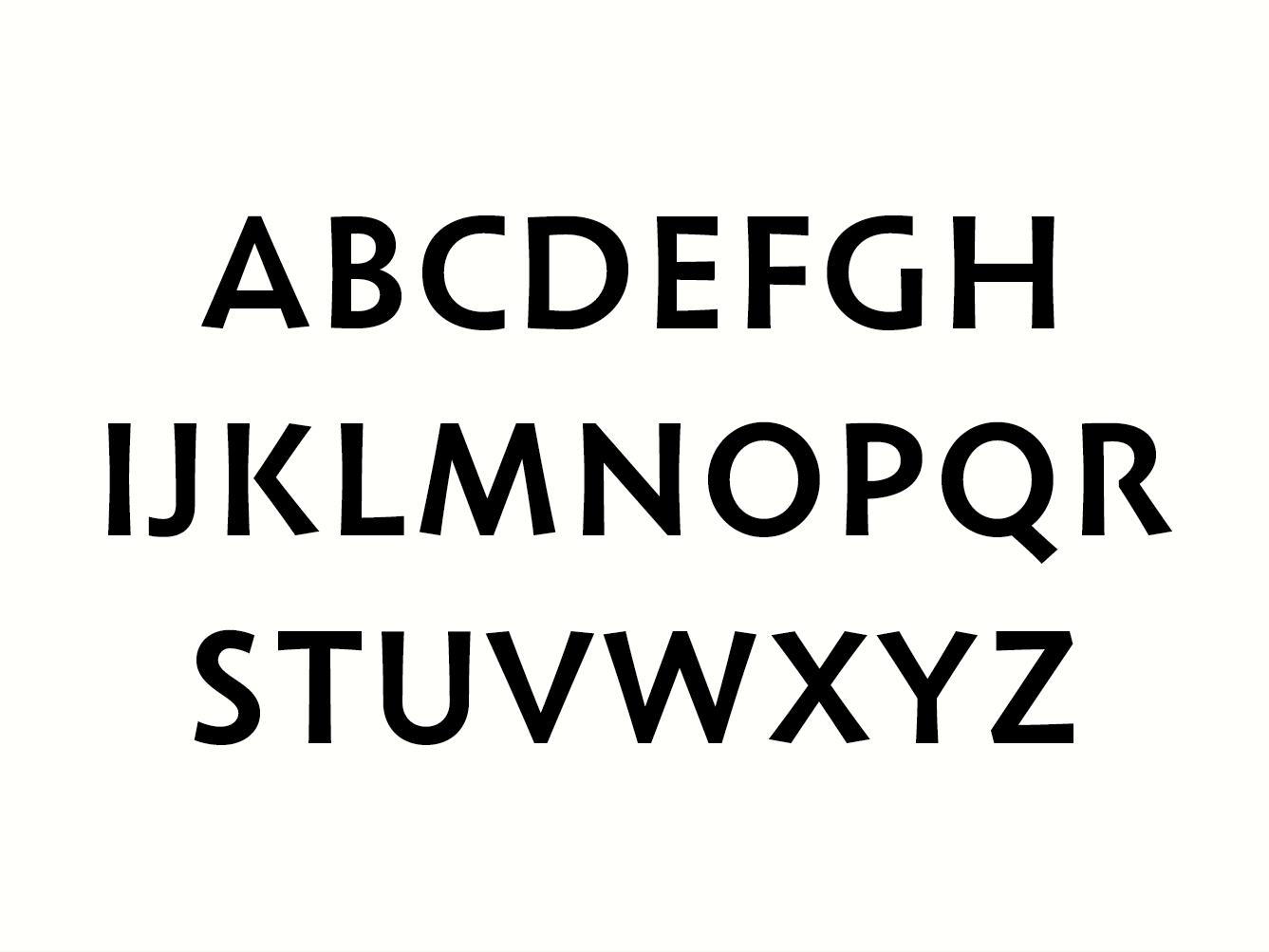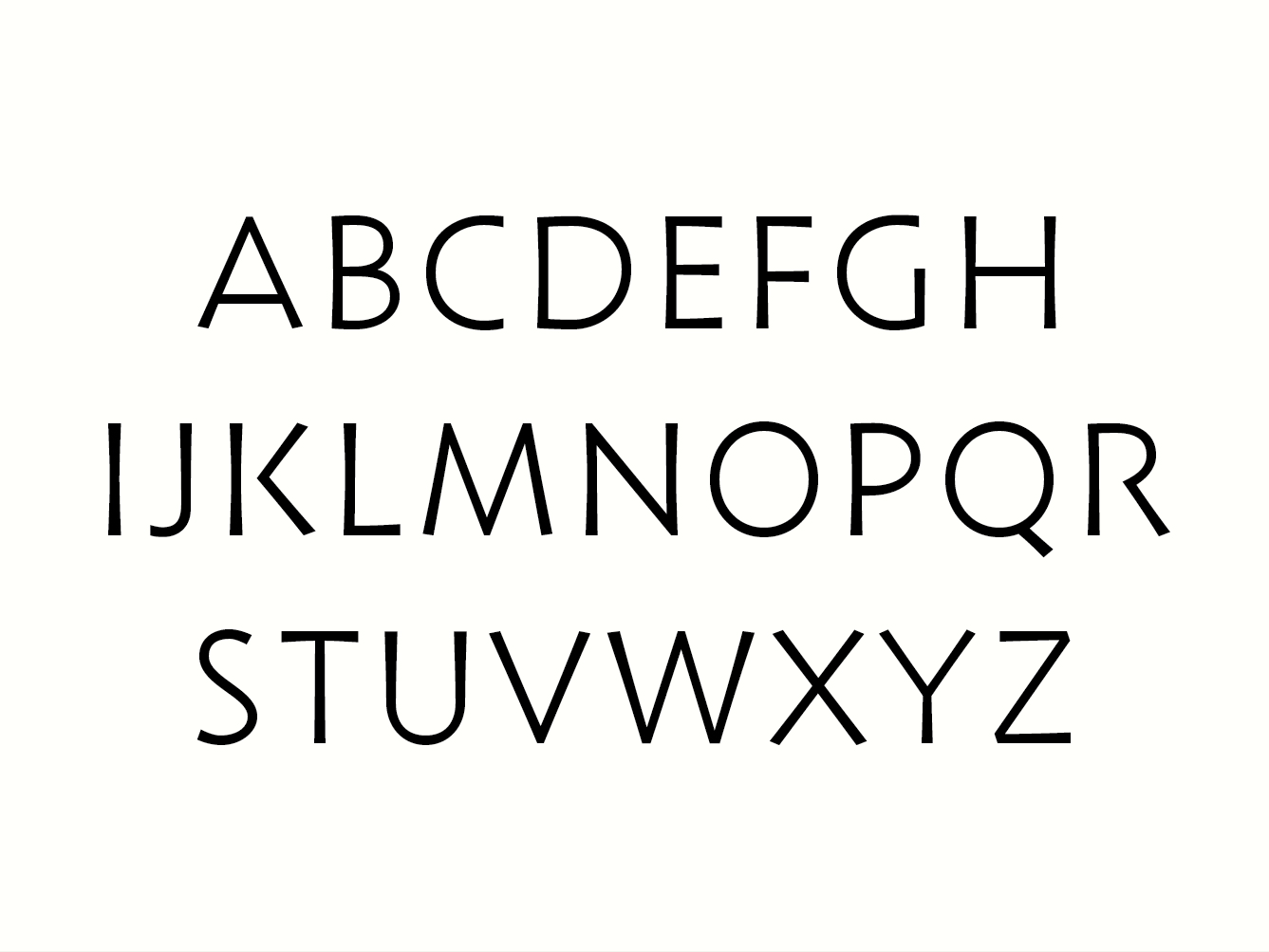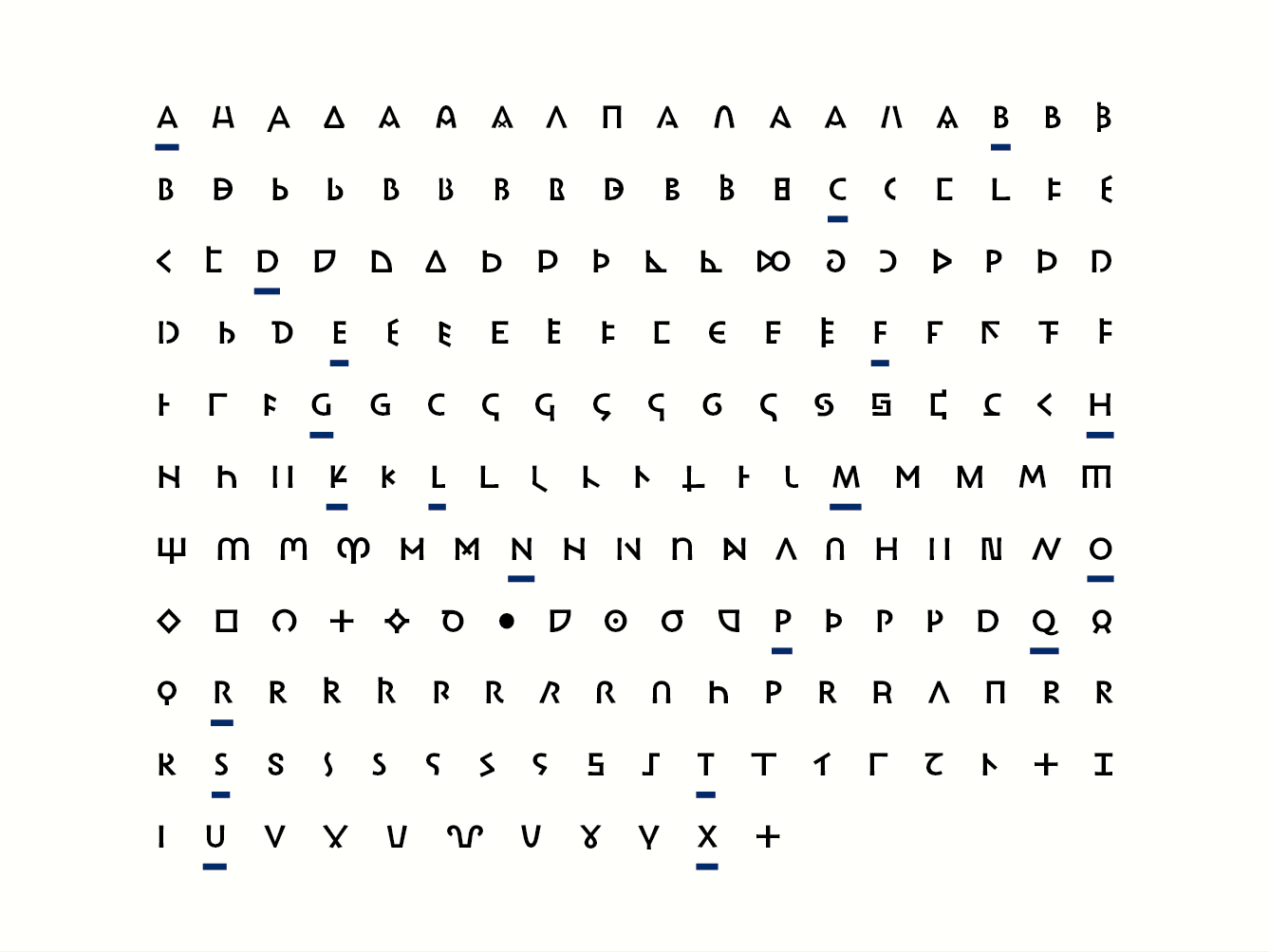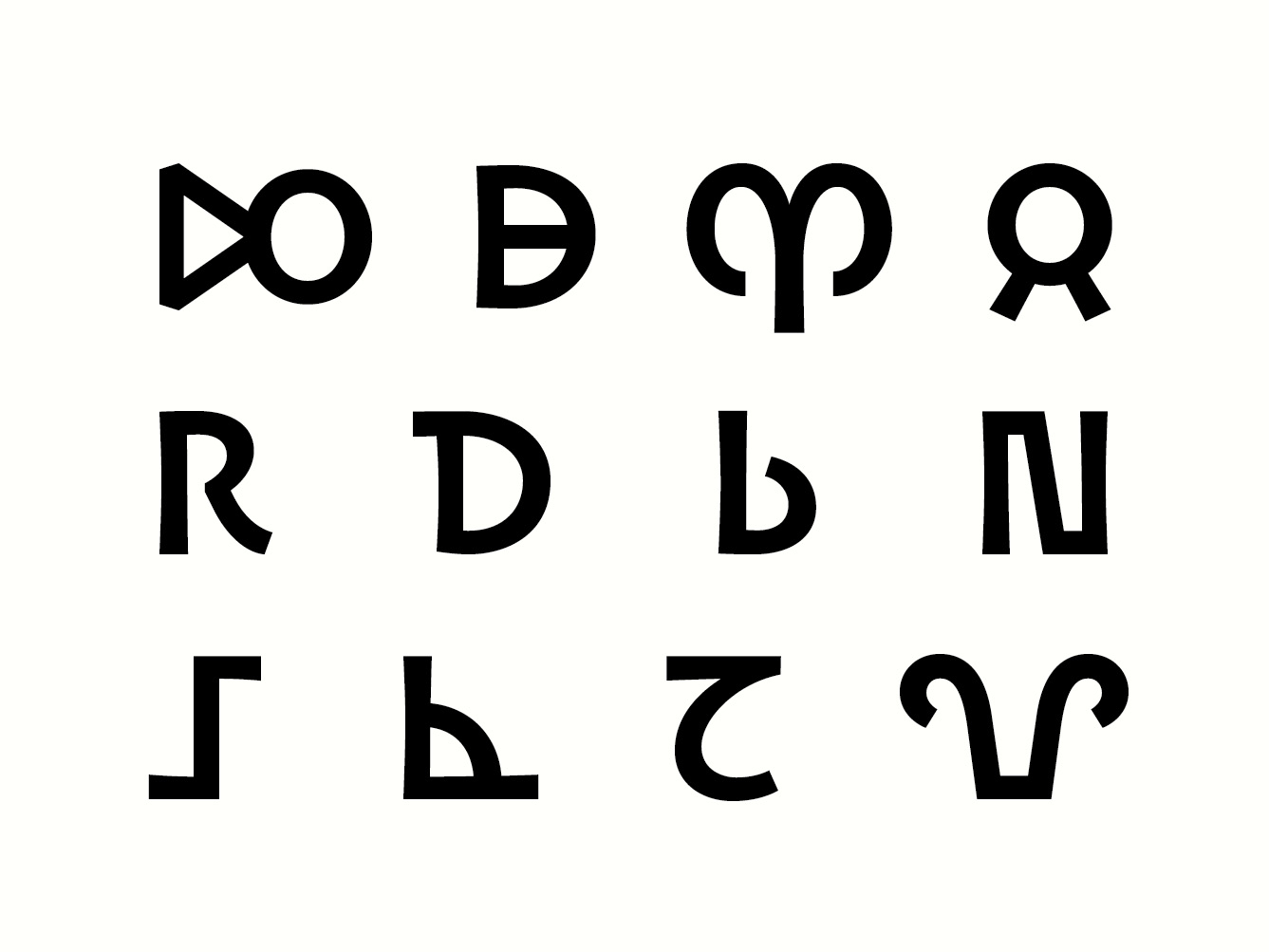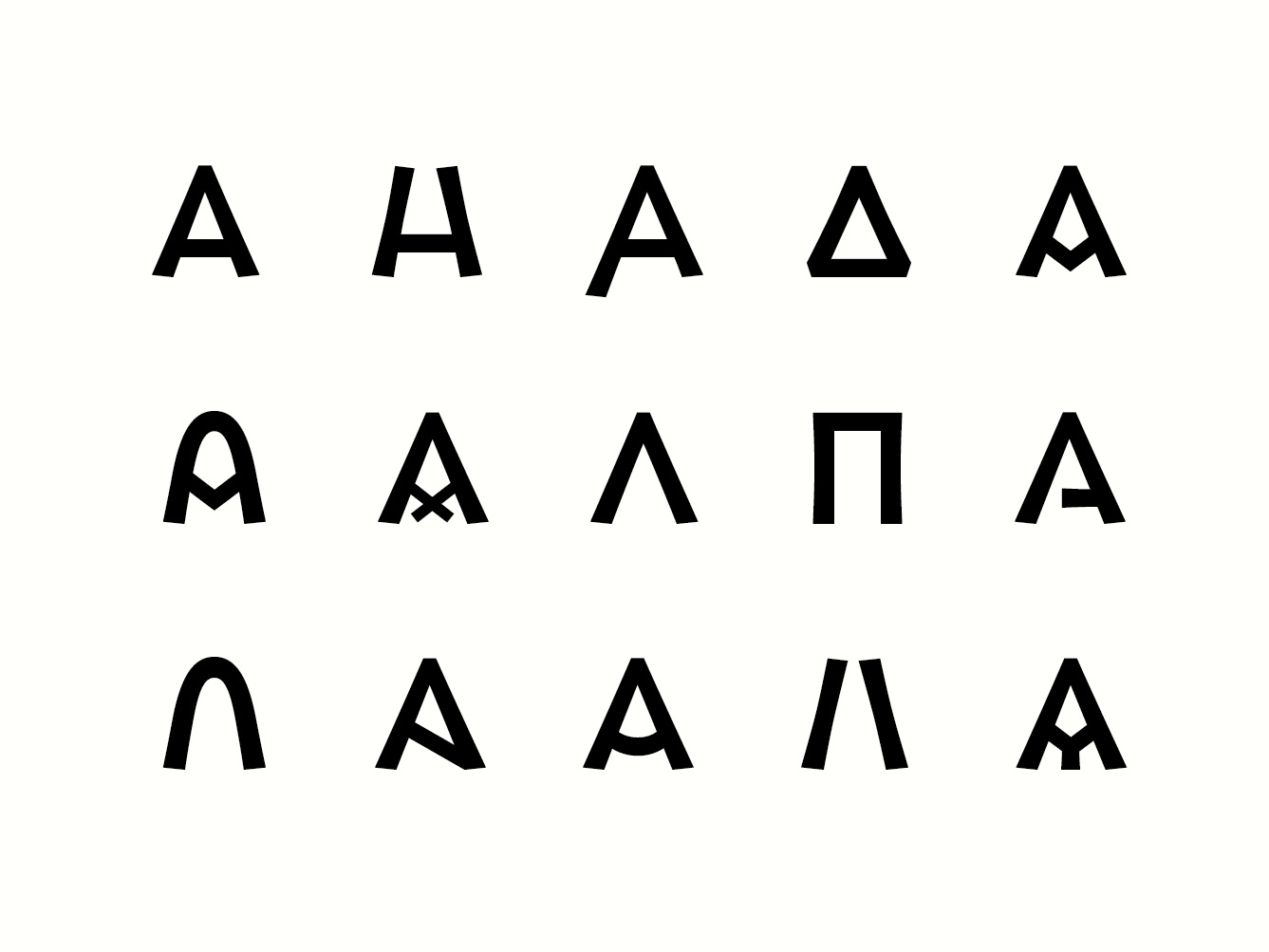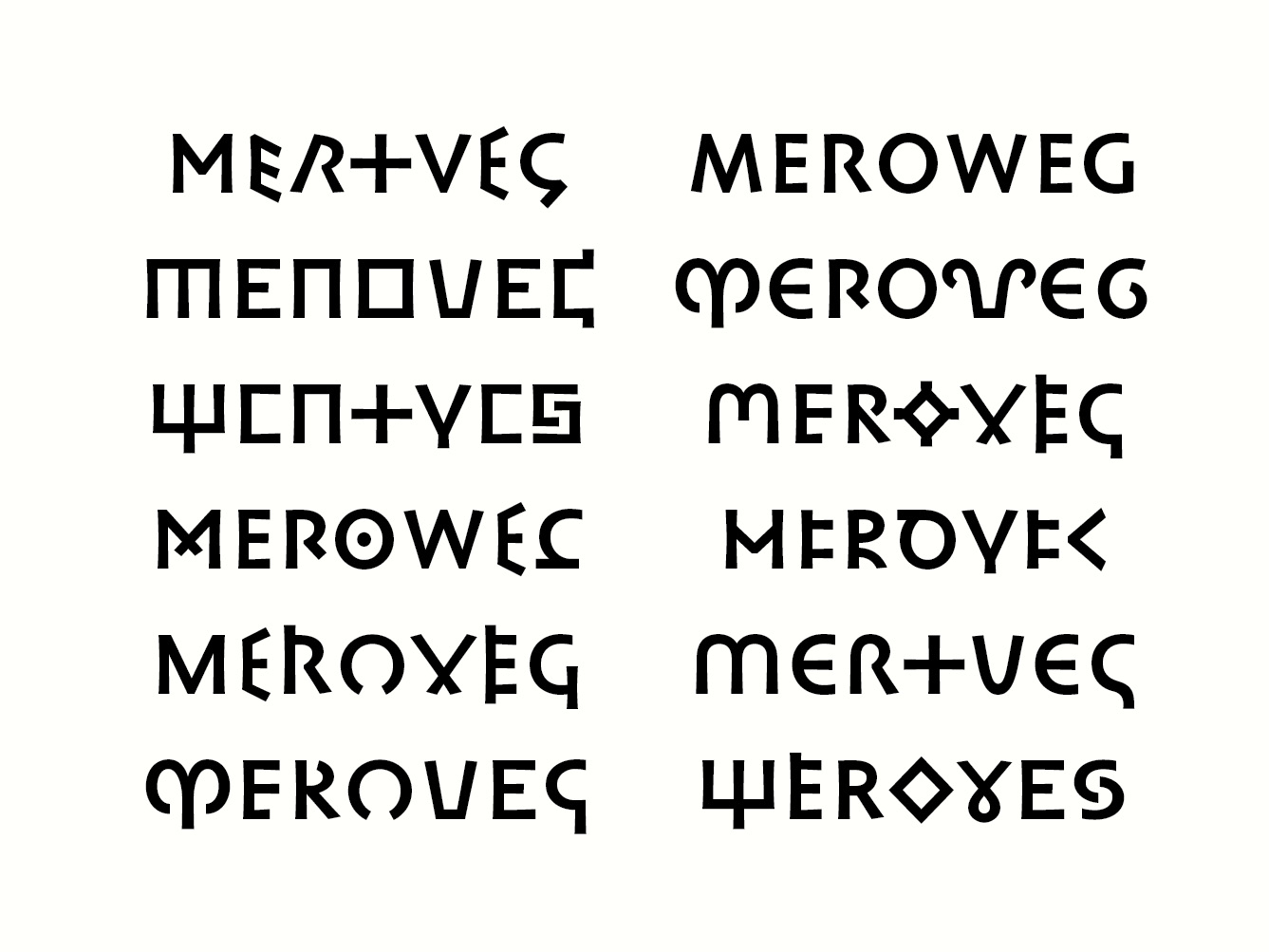
The PIM research project (Font for Monetary Inscriptions) initiated by Florence Codine, curator in charge of the Merovingian coins at the department of coins, medals and antiques from the National Library of France (BnF), aims at producing a tool suitable for transcribing the information contained on monetary inscriptions, beyond their semantic content.
When studying a coin, the textual information it carries provide many clues regarding its origin. But the graphic features of the inscription (structure, weight, terminals ...) also provide valuable information. Unfortunately, there is currently no digital font capable of fully rendering these specificities.
Therefore, a partnership between the BnF and ANRT has been set up with a view to develop a typeface that brings together, in a unified form, all identified stylistic variants. Based on the classification of the letters found on these coins, which was conducted by a team of researchers, it was possible to deduce an accurate and relevant interpretation of the various letterforms. This step questioned the level of information that should be represented by the glyph. Which details belong to the structure? How could endings or thickness of stroke appear, and should they appear? Where should the line be drawn between interpretation and transcription of the sign? Throughout this first stage of work, it was necessary to keep in mind the graphic unity of the typeface. This led to a reflection on the coherence of the letterforms within the font. How can glyphs, whose structure and appearance vary greatly, work together? Up to which point can the shapes be standardized, while remaining compatible with the project’s aim? Composed mainly of capital letters, the typeface, whose primary use would be for scientific publications, questions the readability and identification of each glyph independently of the others within a text.
Currently, the Meroweg typeface is designed without serifs to emphasize the multiple letter structures. It is designed with a fairly heavy weight and a very low contrast, to distinguish it from other text typefaces that might be used to set the text around it. Lighter variants of the letters are also integrated to the font, to mark the missing structures, ligatures and damaged letters... The aim is to expand the character set further.